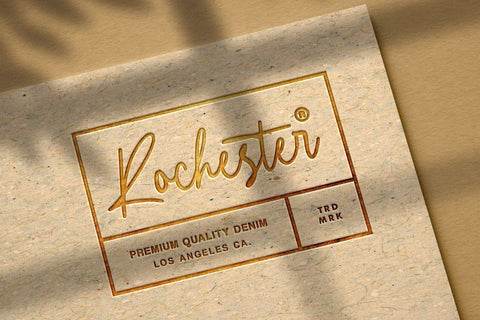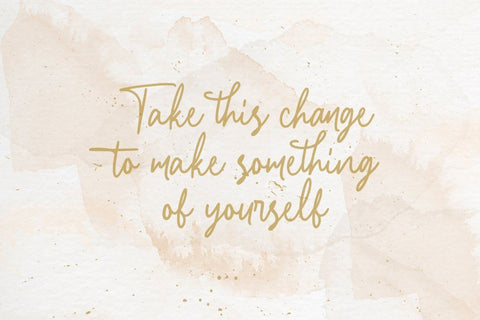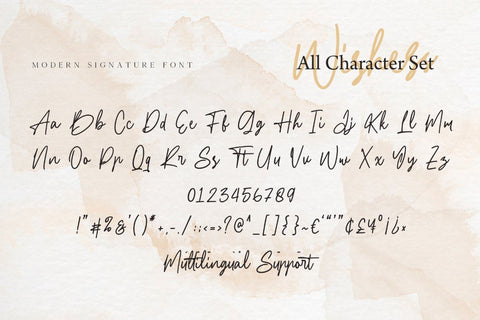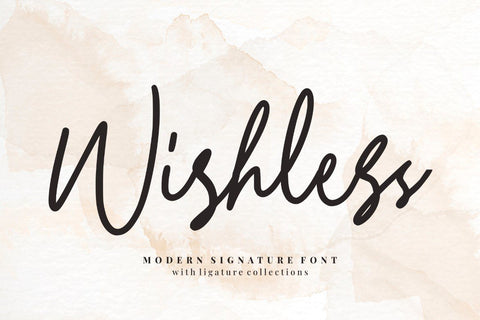
Wishless – Modern Signature Font
Wishless – Modern Signature Font is a modern signature style. Perfect for logo, invitation, stationery, wedding designs, social media posts, advertisements, product packaging, product designs, label, photography, watermark, special events or anything. This font include : Wishless OTF-TTF-WOFF, Ligatures, and also Multilingual support.
What’s Advantages Wishless?
- 30+ Ligature Collections
- Very great for branding, logotype, handletteing, invitations, or fashion branding.